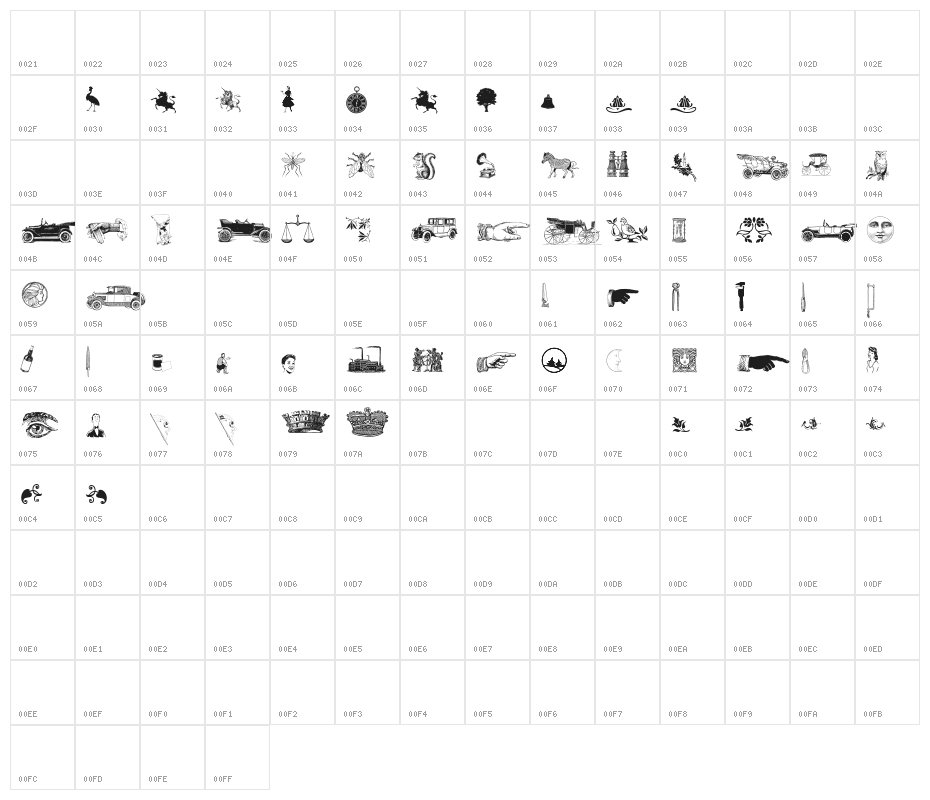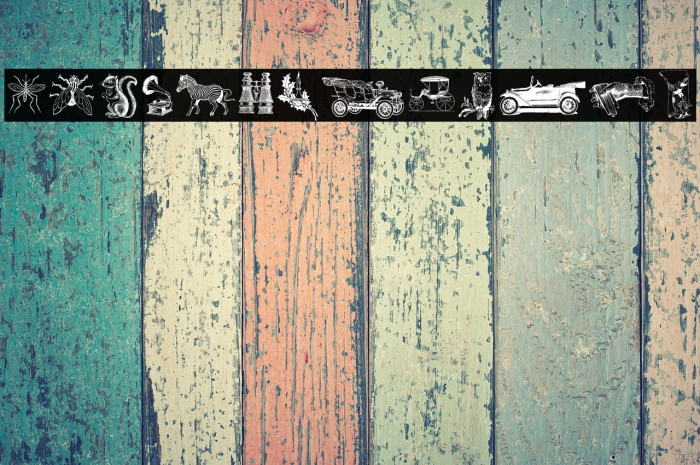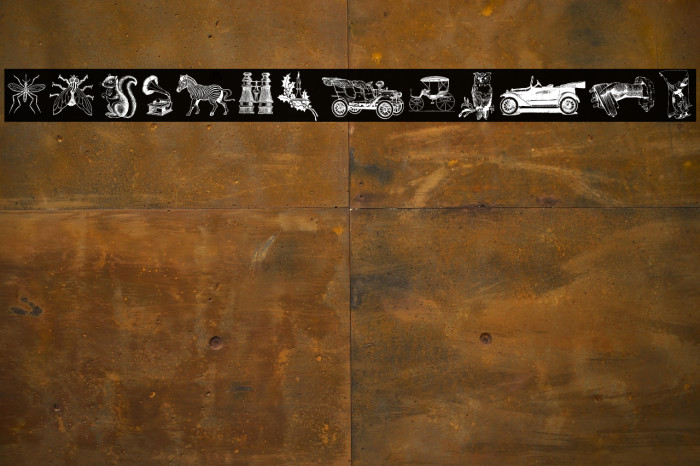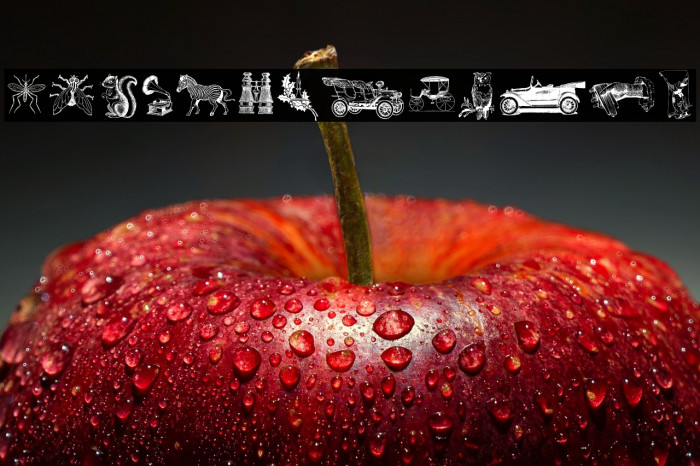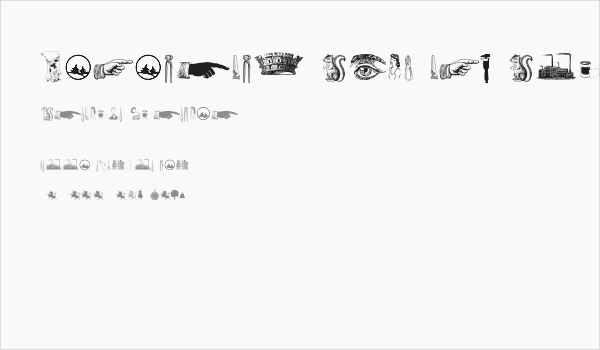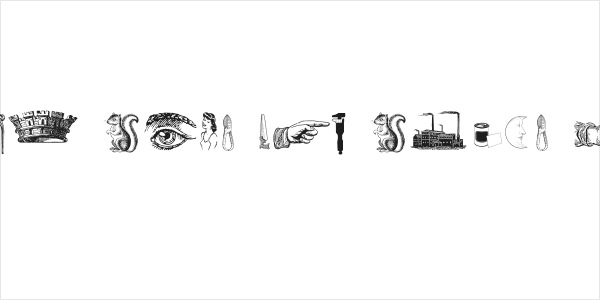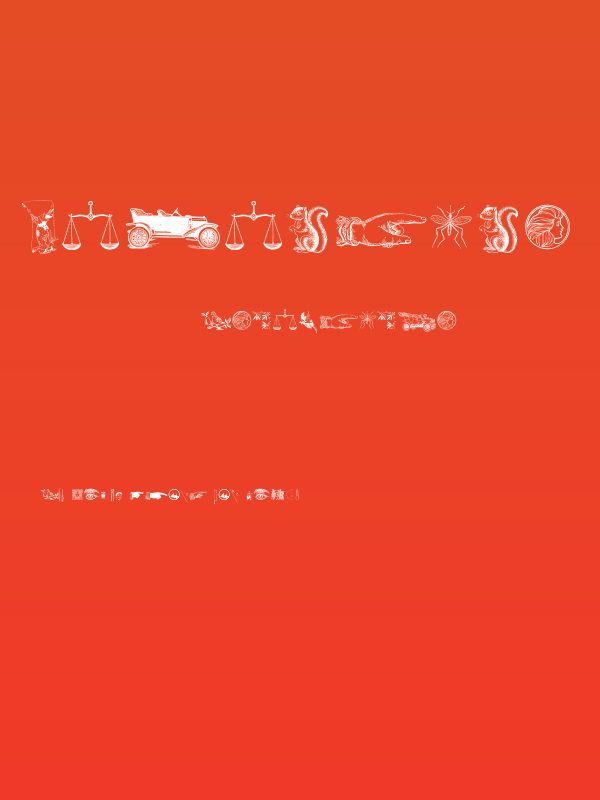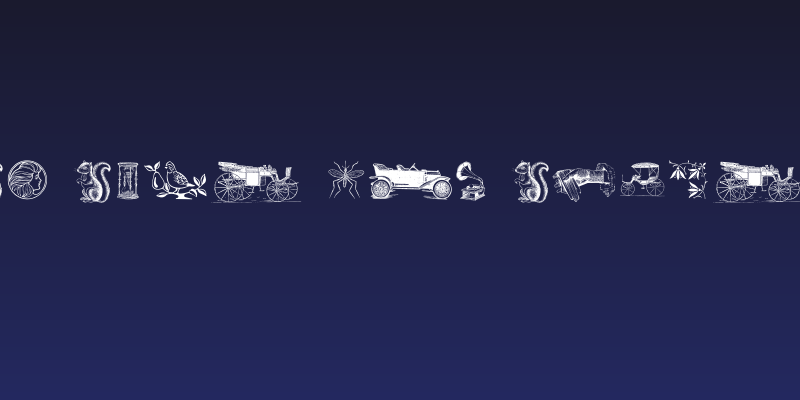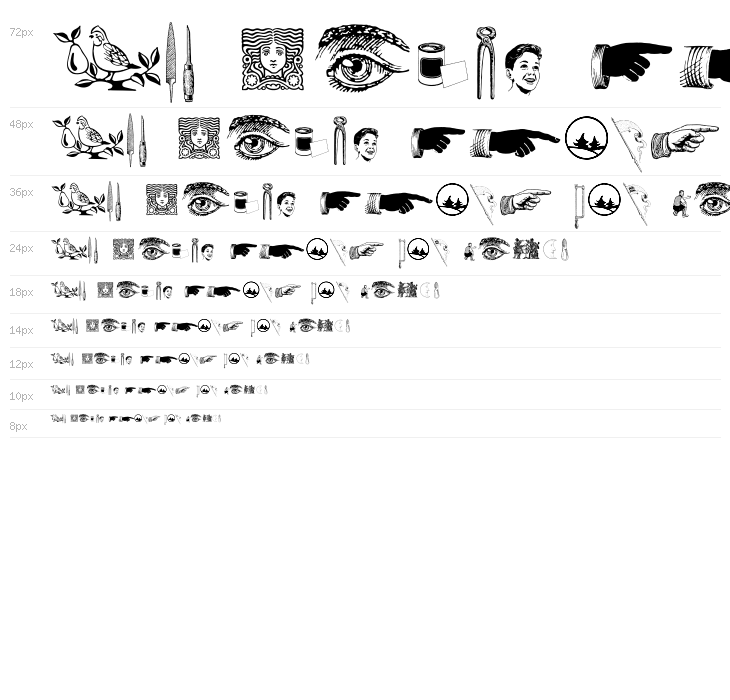
Monocracy Cuts and Clips Regular Font
Monocracy Cuts and Clips Regular Description
A decorative dingbat font featuring a wide variety of vintage-style illustrations, including animals, vehicles, hands, faces, objects, and ornamental motifs. Each character is represented by a detailed black-and-white drawing, evoking an old-fashioned, engraved look.
| Overall Style | Vintage, Decorative |
| Use Case | Decorative elements, Illustrative accents, Themed graphics |
| Proposed Projects | Posters, invitations, scrapbooking, branding for vintage-themed businesses, decorative borders, and creative design projects requiring unique pictorial elements. |